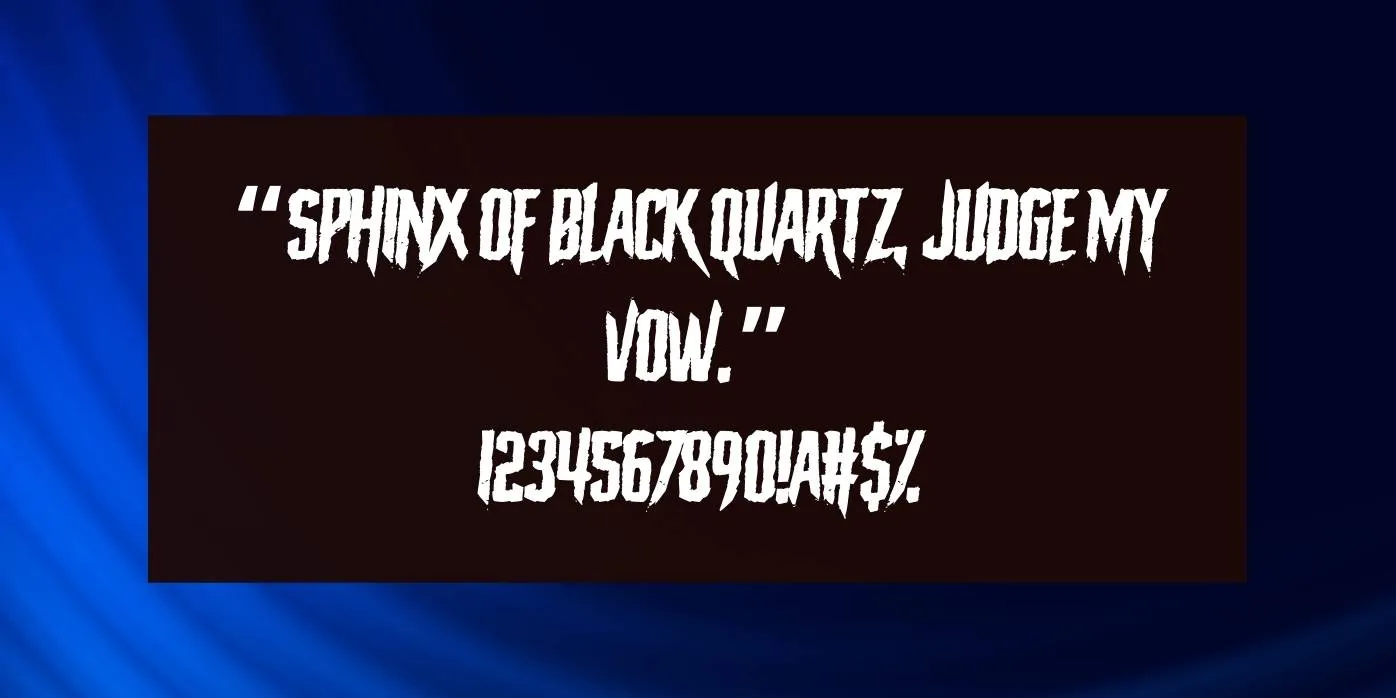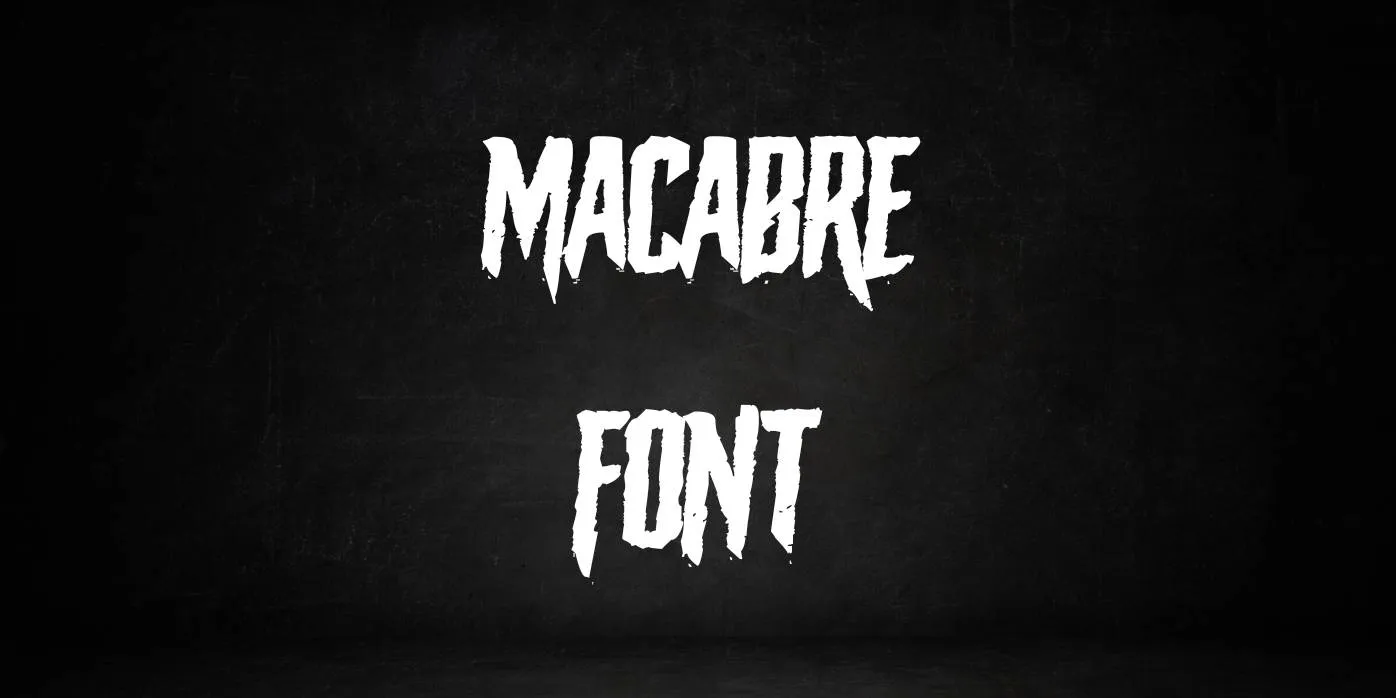
The Macabre Font
The Macabre Font is a fancy type of font. Chequered Ink is the designer of this typeface. There are 188 stunning glyphs for this texture. There is only one regular style for this typeface.
The characters of this typeface are big, bold, and highly readable. These characters are in capital letters, small letters, numbers, and punctuation marks. This fancy font type is available in OpenType Font and TrueType Font formats. You can use this fantastic font for free for personal projects and designs.